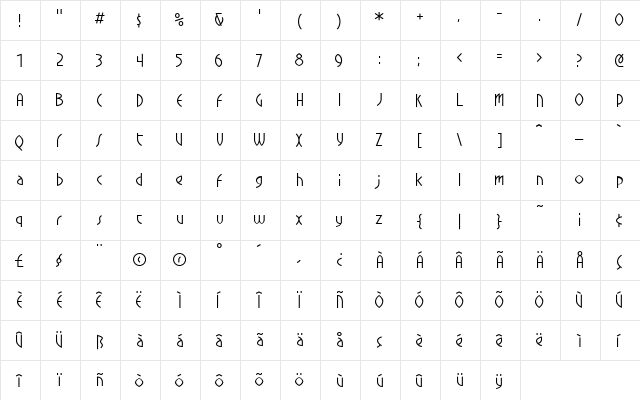
CrowBeakLight Regular
Design Context for CrowBeakLight Typeface
CrowBeakLight is a composed and adaptable typeface that performs quietly and consistently across a wide range of design contexts. The delicate stroke weight brings airiness and refinement to layouts.